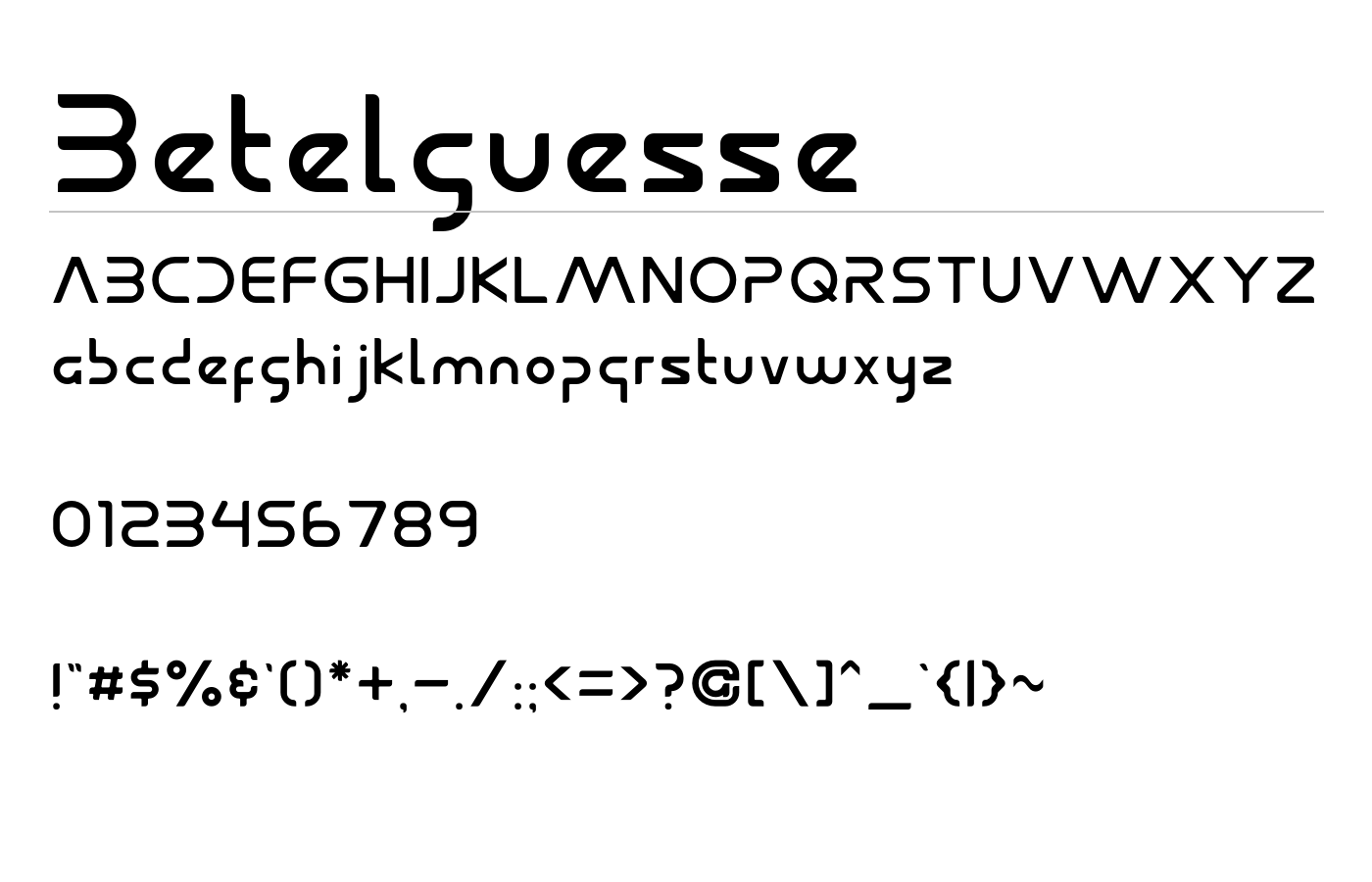
Betelguesse is a modern, geometric sans serif font with a sleek, futuristic feel. Its clean lines and unique angular shapes give it a distinctive, tech-inspired personality, making it ideal for innovative branding, digital projects, and headlines where a contemporary look is desired. This font works well for creative logos, websites, and editorial designs seeking a bold yet approachable style.
Betelguesse Font
About Betelguesse Font
| Font family | Betelguesse Font |
| Languages supported | Latin, Symbols, Arabic, Greek |
| Designer | Chrisna Tri Hartadi |